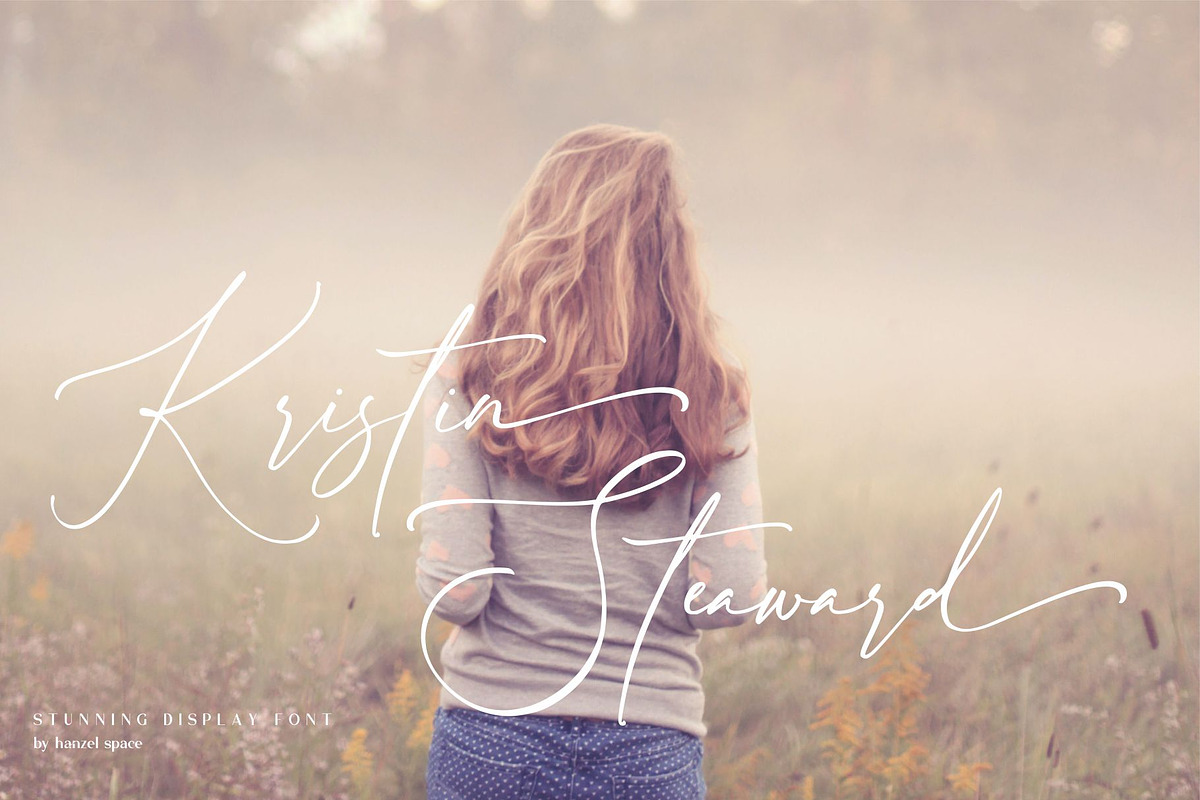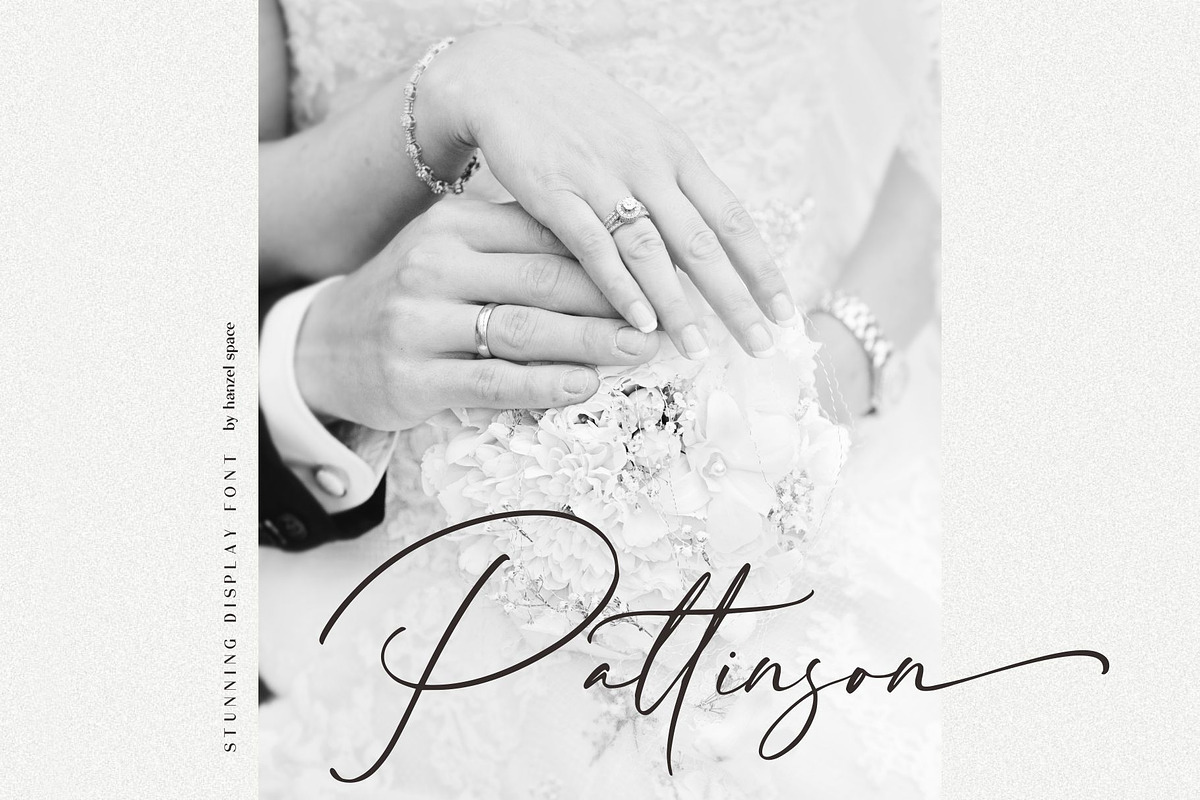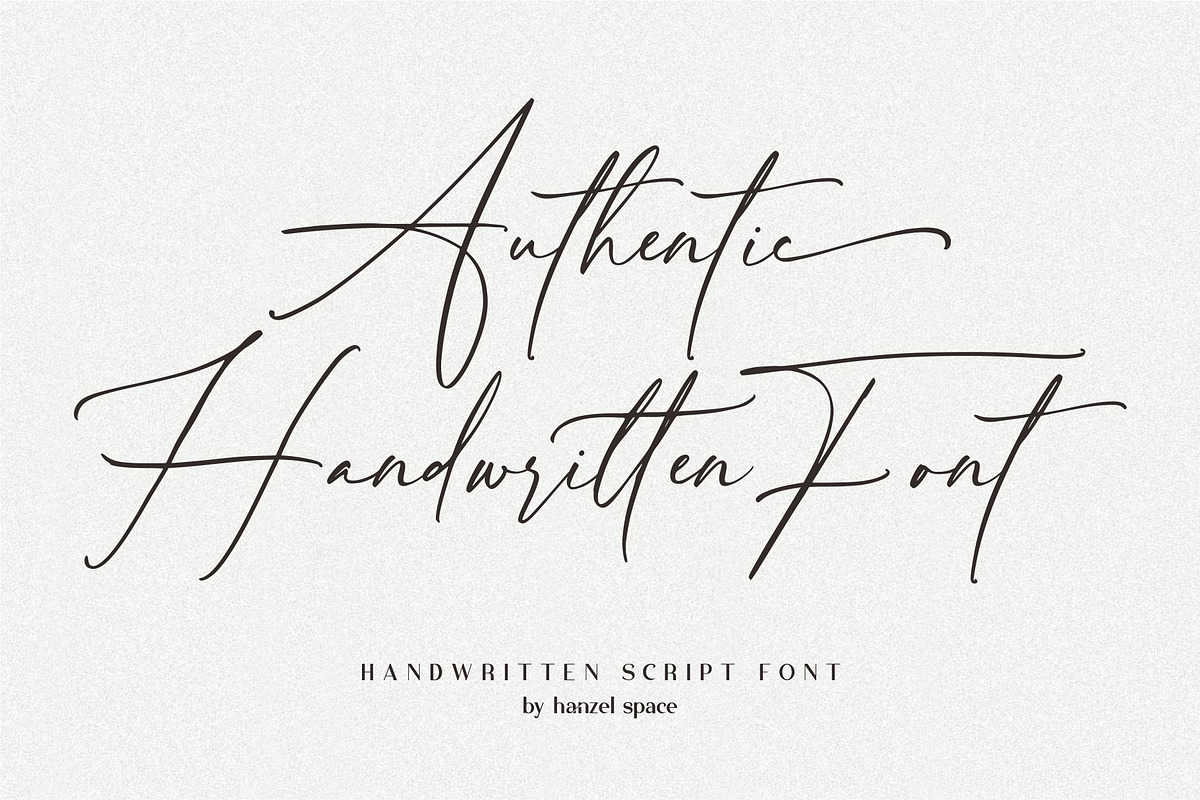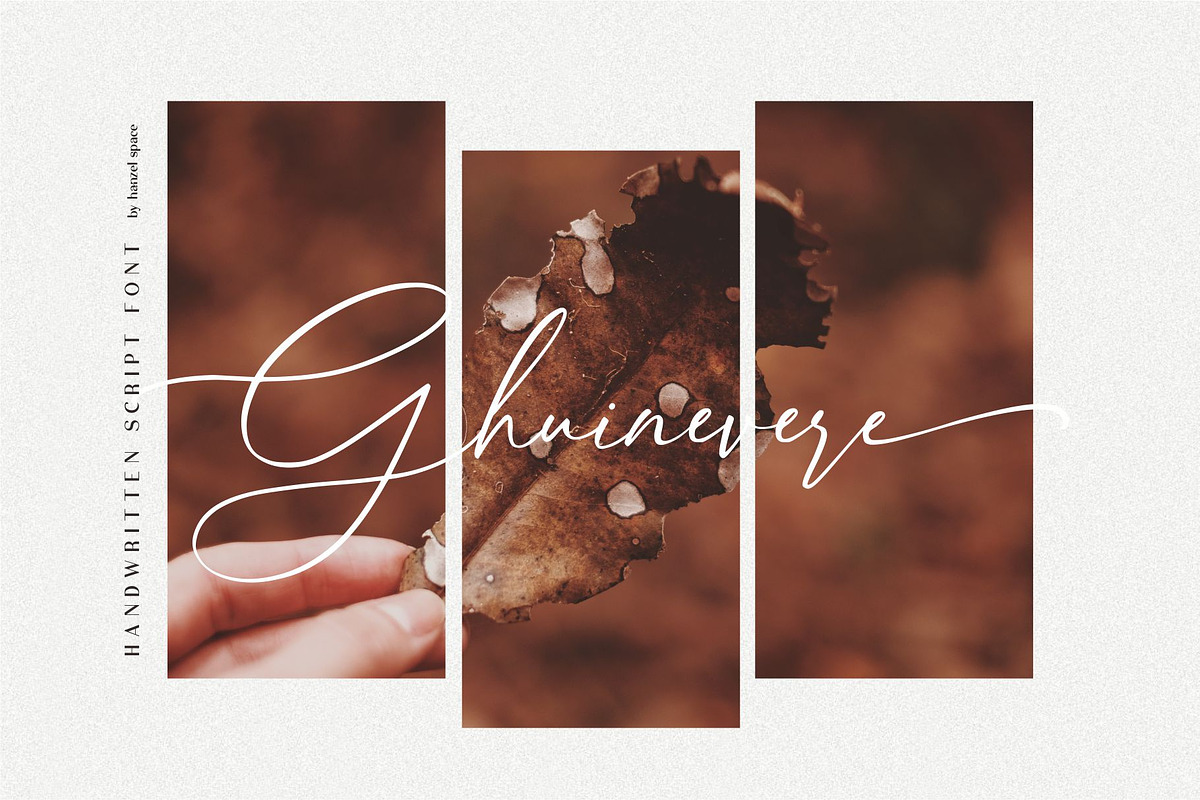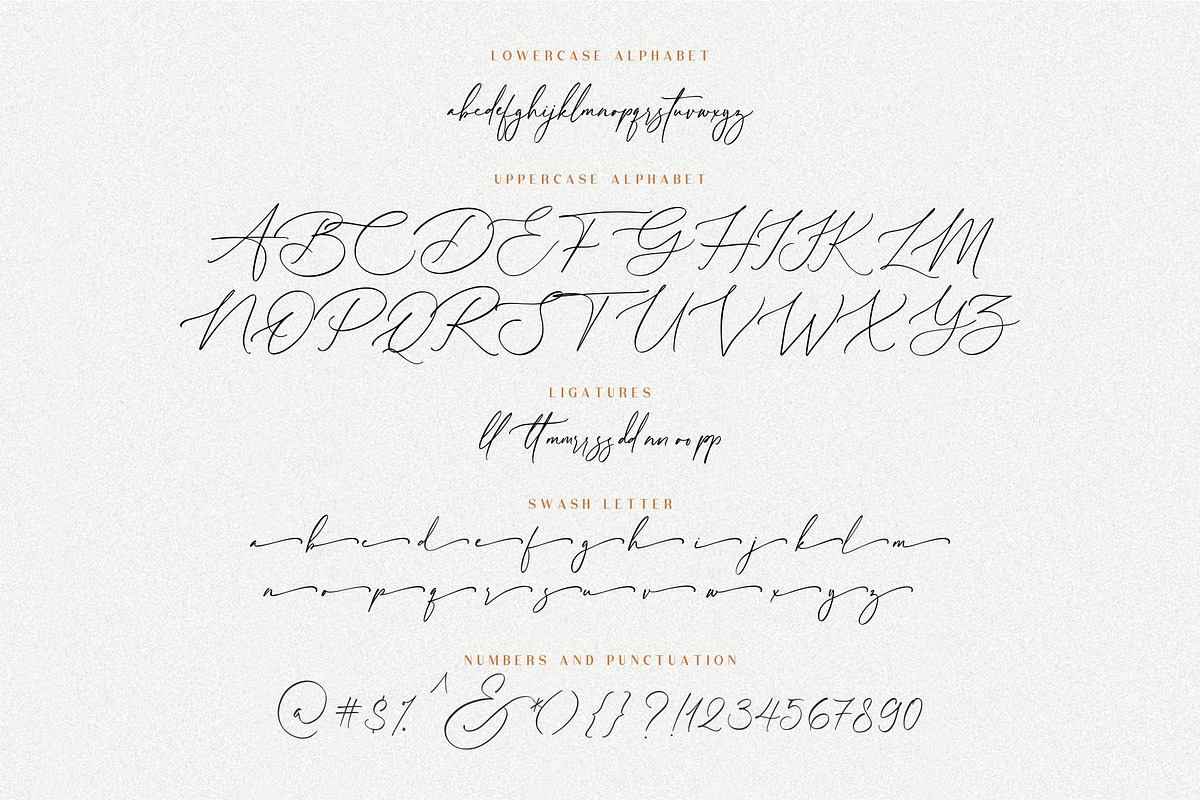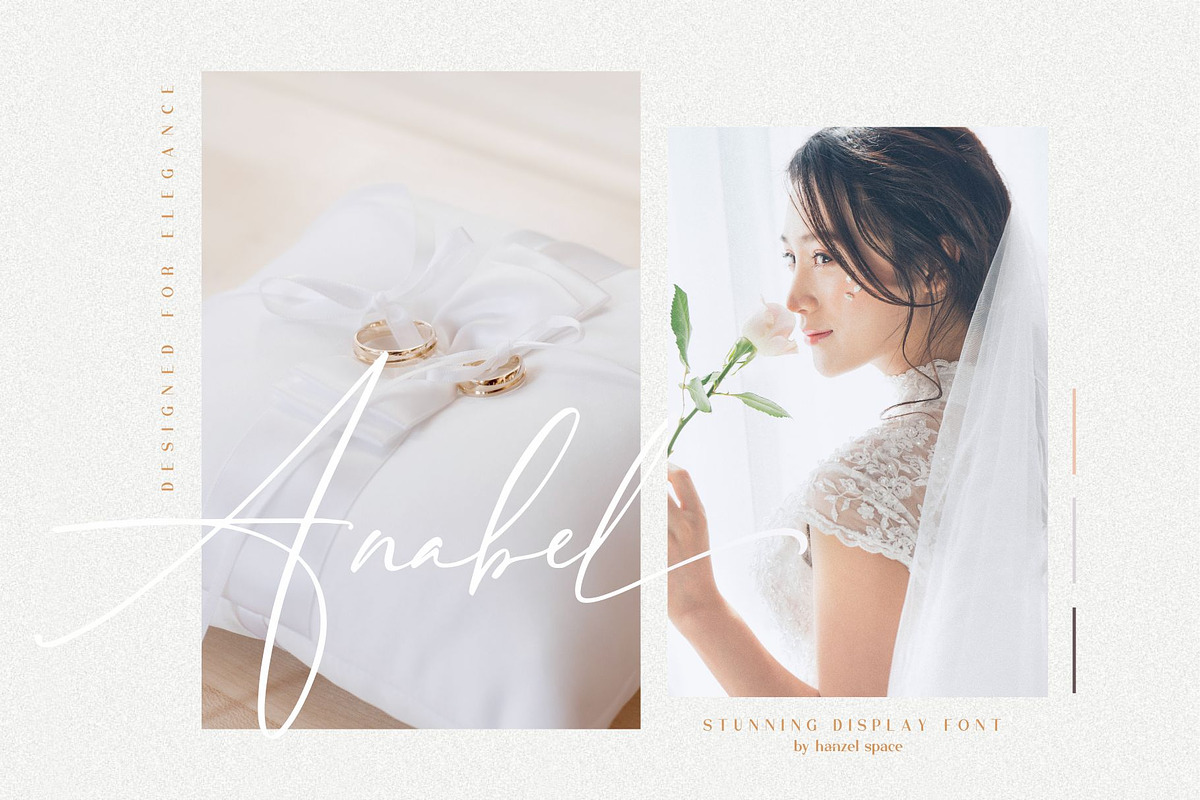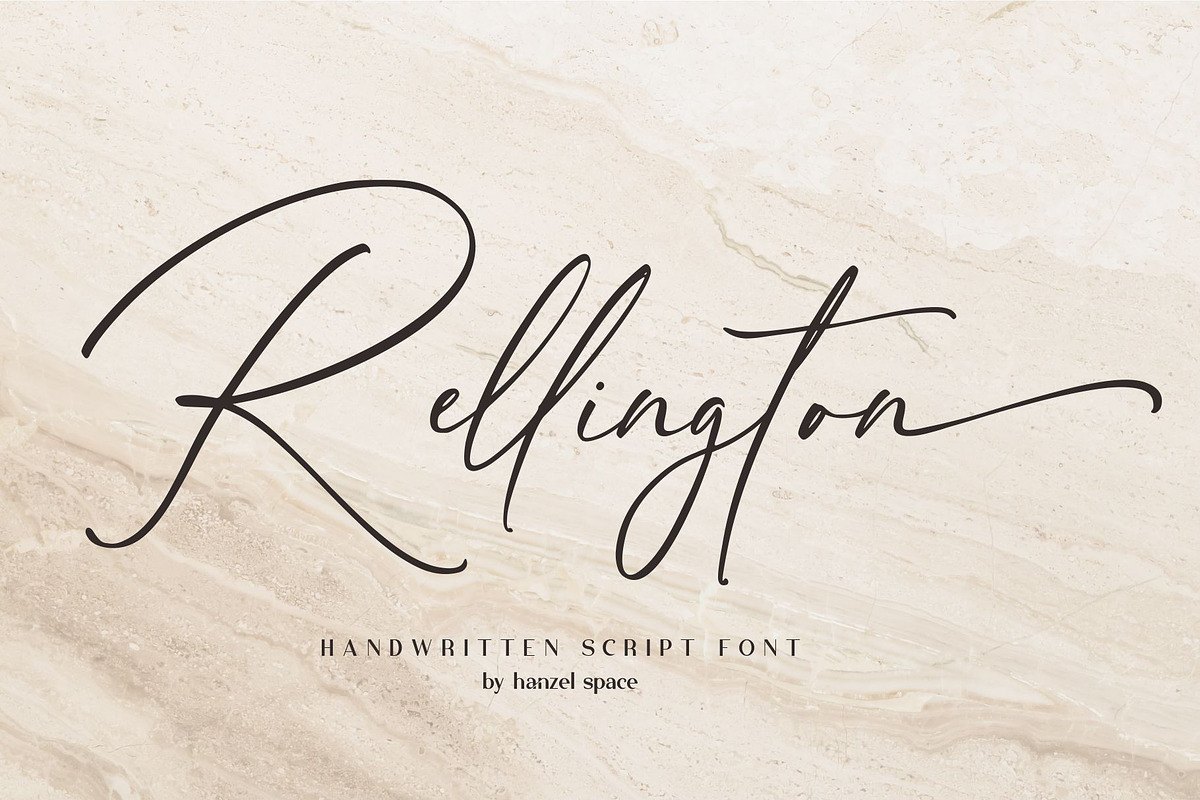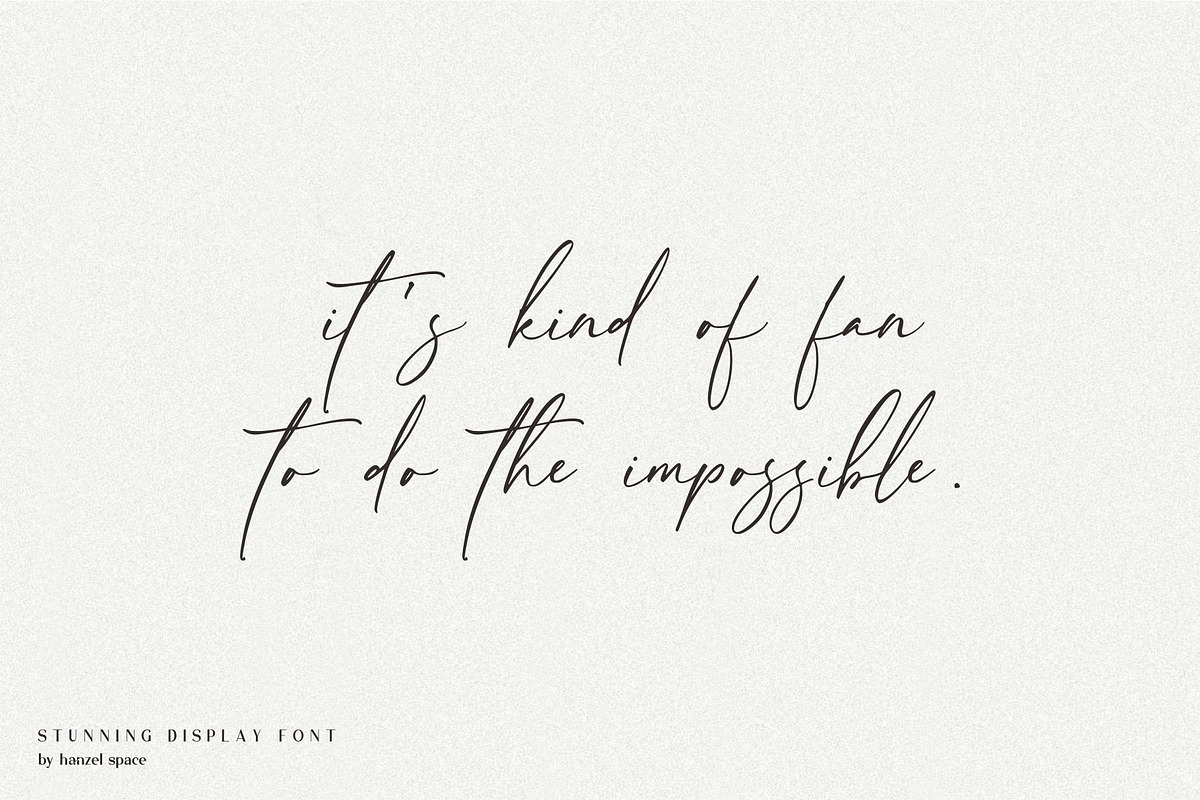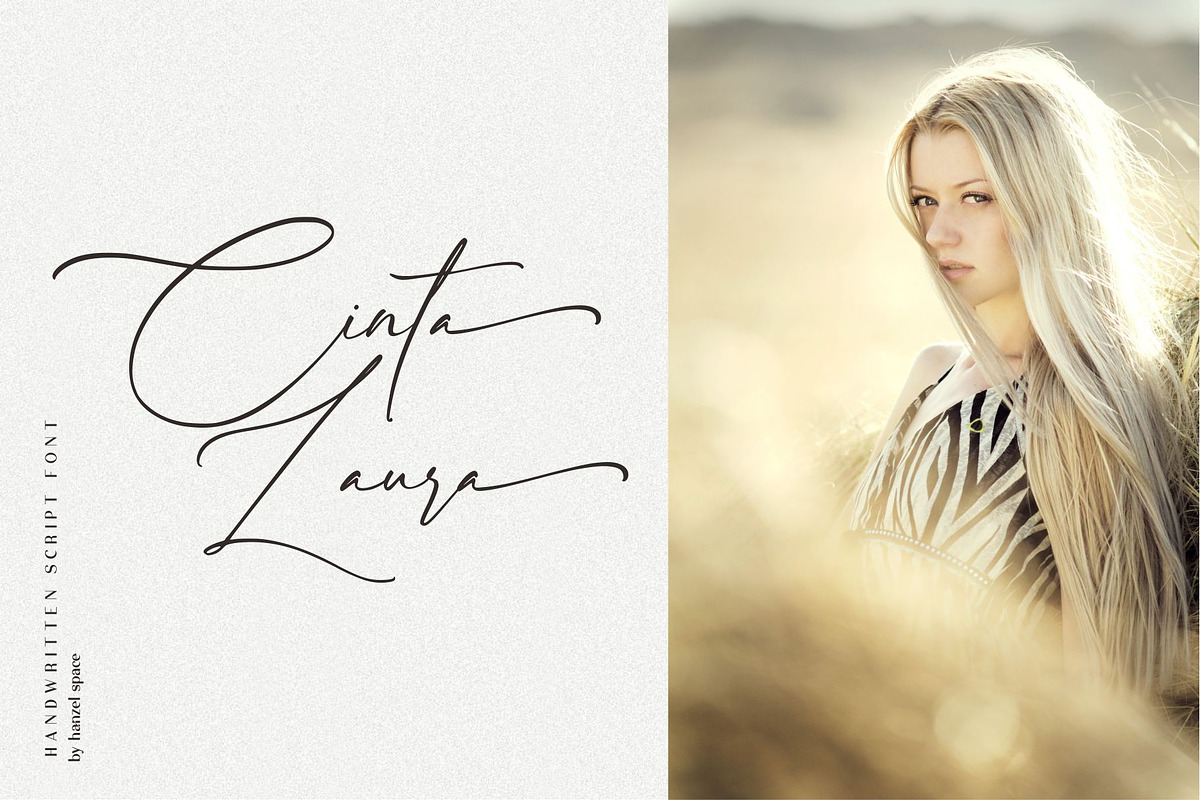
Rellington Handwritten Script Font
Introducing the elegant new Rellington Handwritten Script Font! For those of you who are needing a touch of elegance and modernity for your designs, this font was created for you!
Rellington was built with OpenType features and includes beginning and ending swashes, alternate swash characters for most lowercase letters, numbers, punctuation, alternates, ligatures and it also supports other languages :)